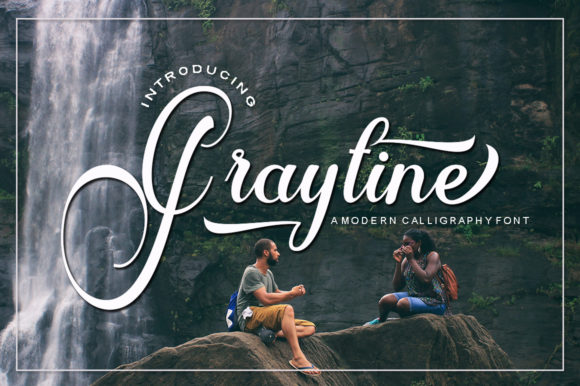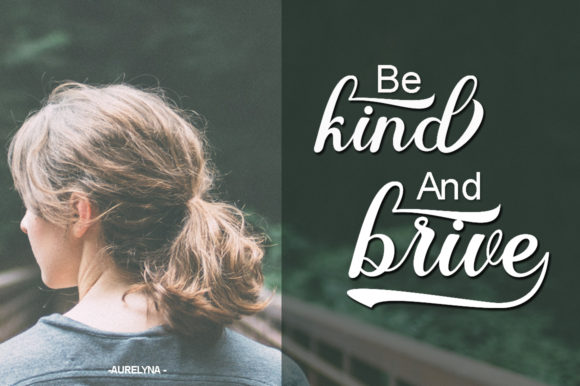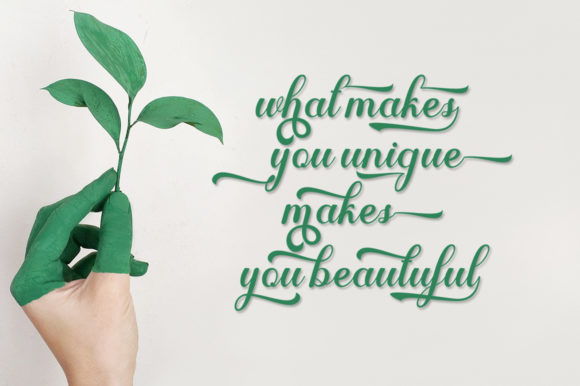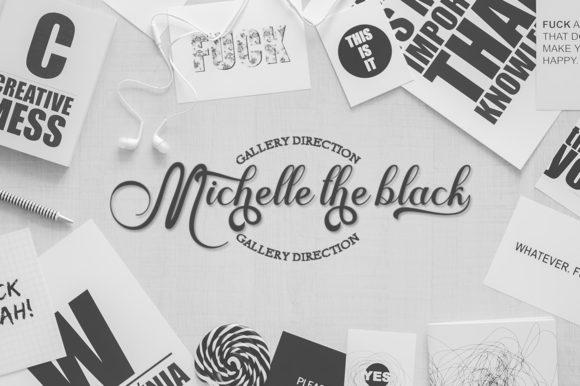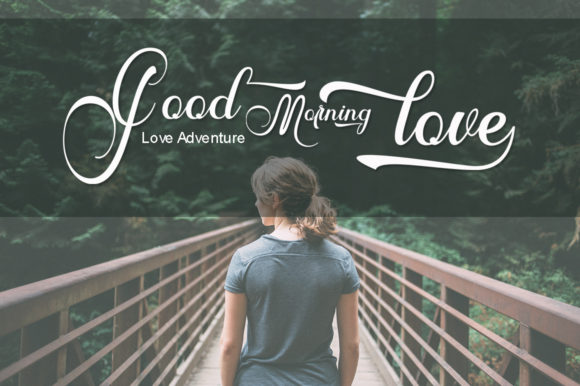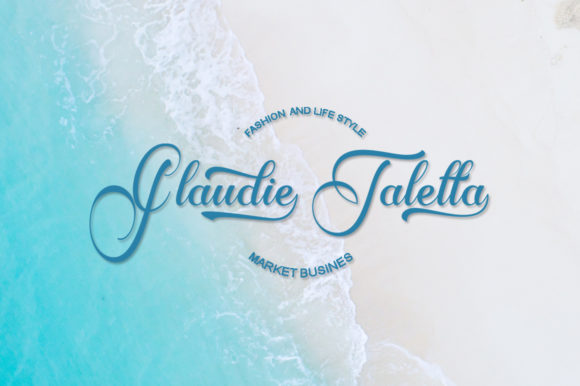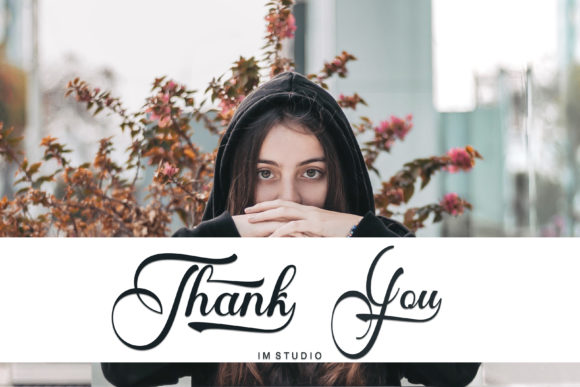
Graytine Script Font
About Graytine Script Font
Graytine is a beautiful and inspiring scrip featuring 417+ stunning glyphs. It will add a unique charm to any design idea!